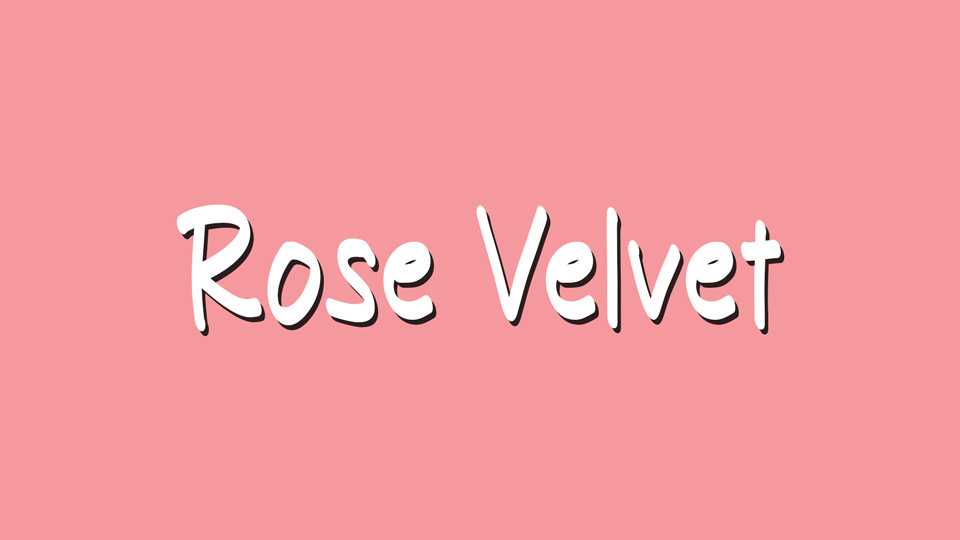
Download Rose Velvet font, a handcrafted typeface made with simple and organic lines. Add a touch of personality and charm to your creative projects with Rose Velvet font.